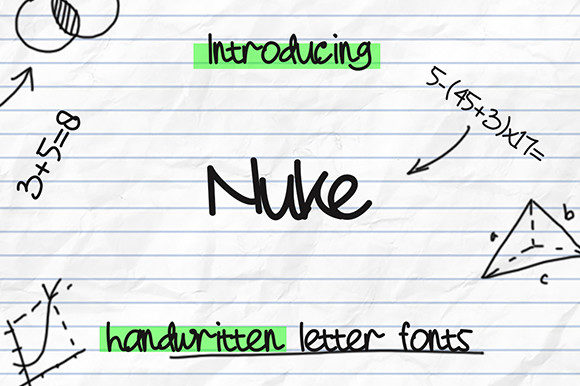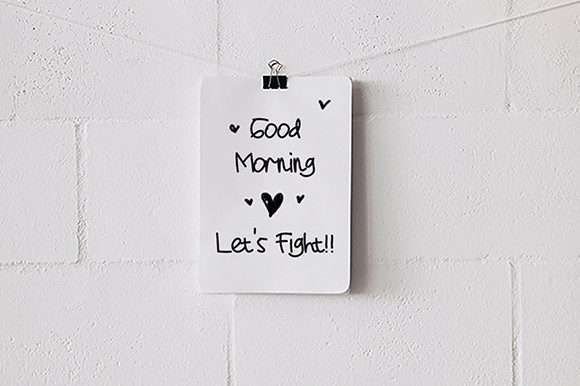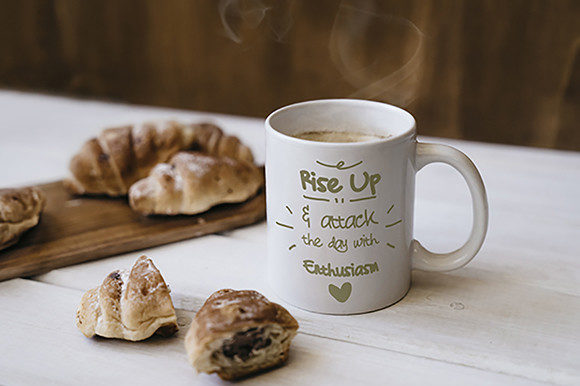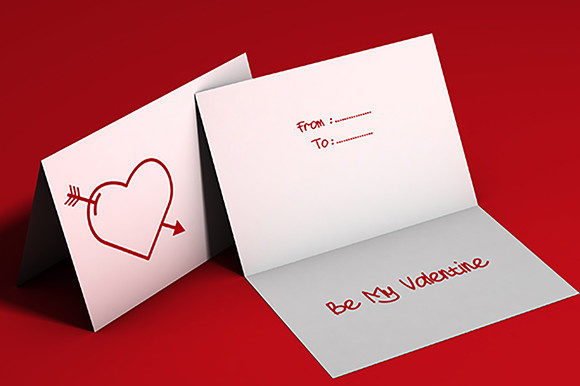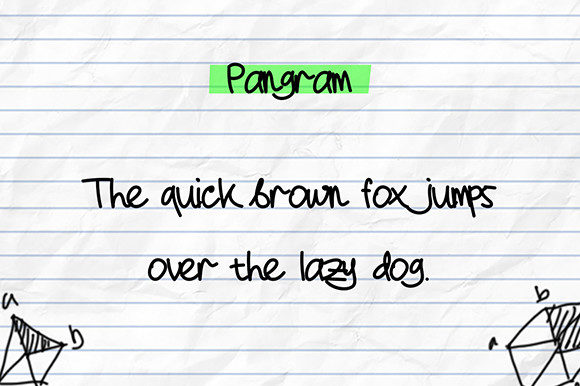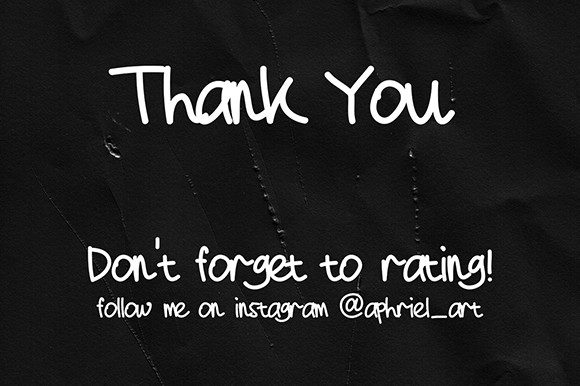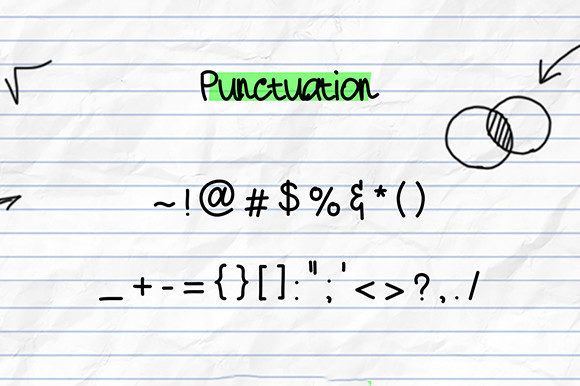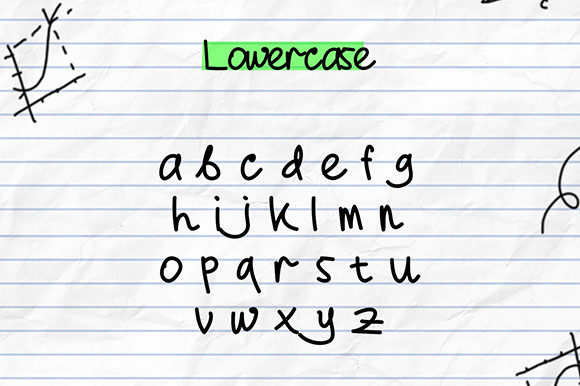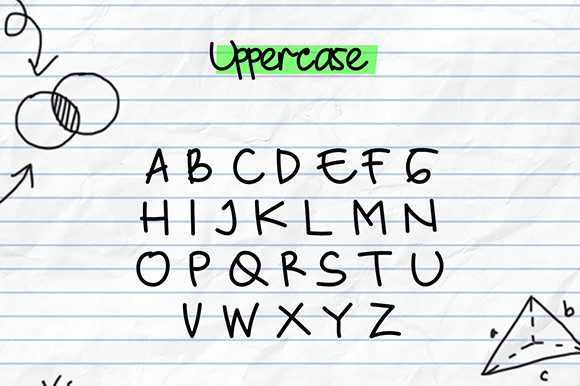
Nuke Font
About Nuke Font
Nuke is a charming and friendly handwritten font that exudes a natural and unique style. With its whimsical and playful appearance, this font can be a great fit for a wide range of design projects. The versatility of Nuke knows no bounds, as it lends itself well to various creative applications.
Whether you’re designing a logo, creating eye-catching headlines, crafting personalized stationery, or even working on social media posts, Nuke can add a touch of warmth and character to your designs. Its hand-drawn aesthetic brings a sense of authenticity and approachability, making it perfect for projects that require a friendly and inviting vibe.
Nuke’s natural style allows it to harmonize with different themes and subjects. It can be used to enhance children’s books, playful branding, handmade crafts, cheerful greeting cards, and more. The only limit is your imagination when it comes to incorporating Nuke into your design projects.
One of the highlights of Nuke is its ability to infuse a sense of warmth and friendliness into your designs. The fluidity of its handwritten strokes adds a personal touch and evokes a sense of connection with the viewer. This makes Nuke an excellent choice for projects that aim to create an emotional and engaging experience.
In summary, Nuke is a sweet and friendly handwritten font that opens up a world of creative possibilities. Its natural and unique style makes it suitable for a wide range of designs, allowing you to explore your imagination and bring your ideas to life. Embrace the charm and versatility of Nuke in your next design project and let its warmth and friendliness captivate your audience.